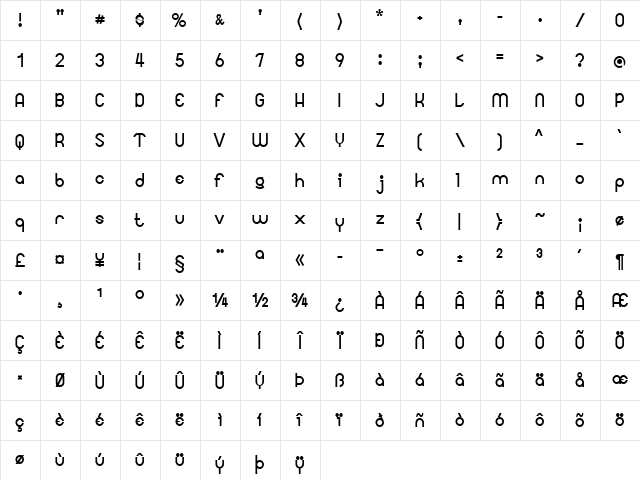
Googee Regular
| Foundry | CATFonts Peter Wiegel |
| Designer | Peter Wiegel |
Design Context for Googee Typeface
Googee offers clean, dependable letterforms without strong stylistic allegiance, making it a practical choice for designers who need flexibility.